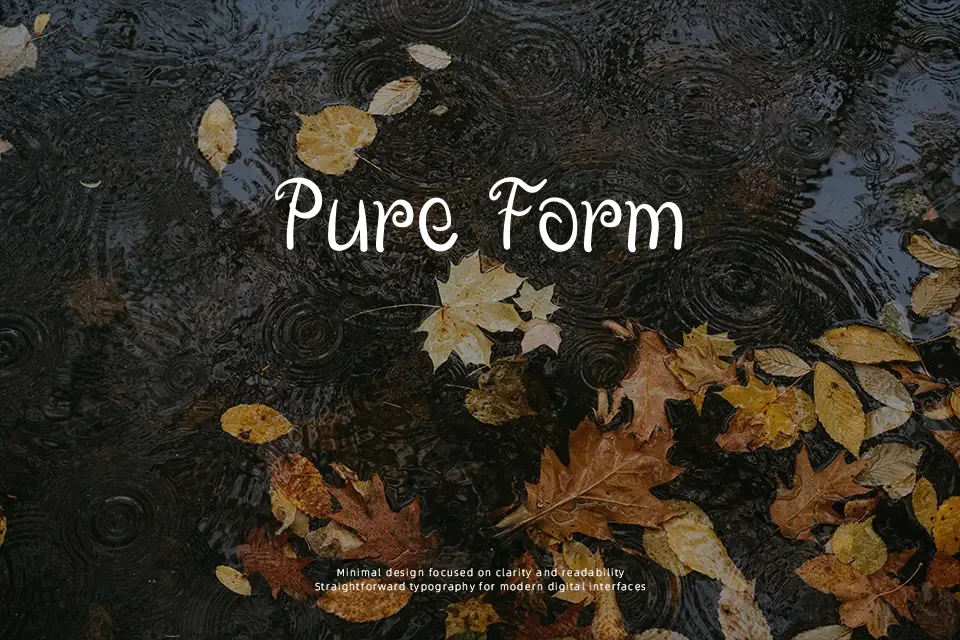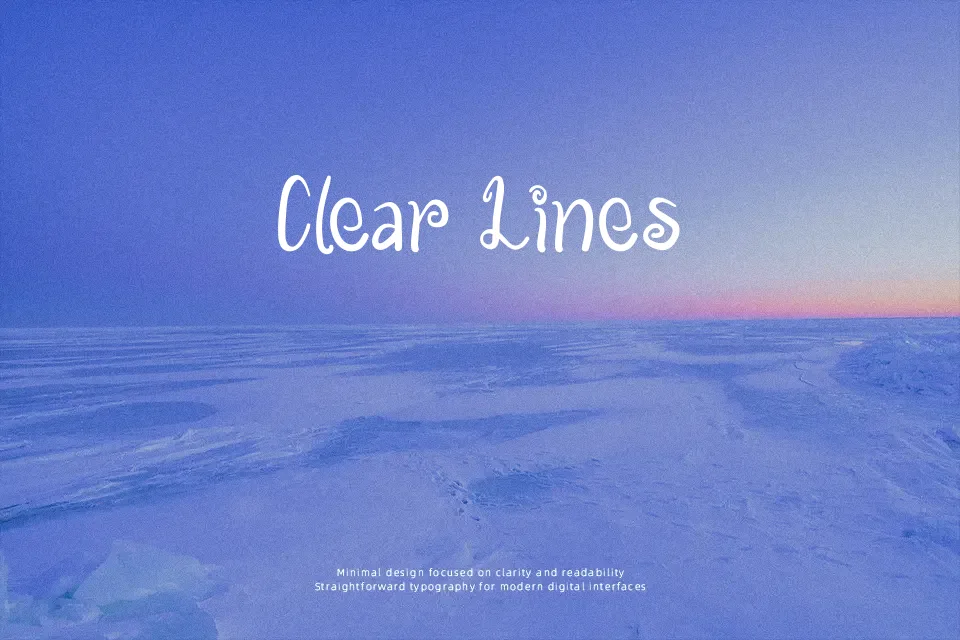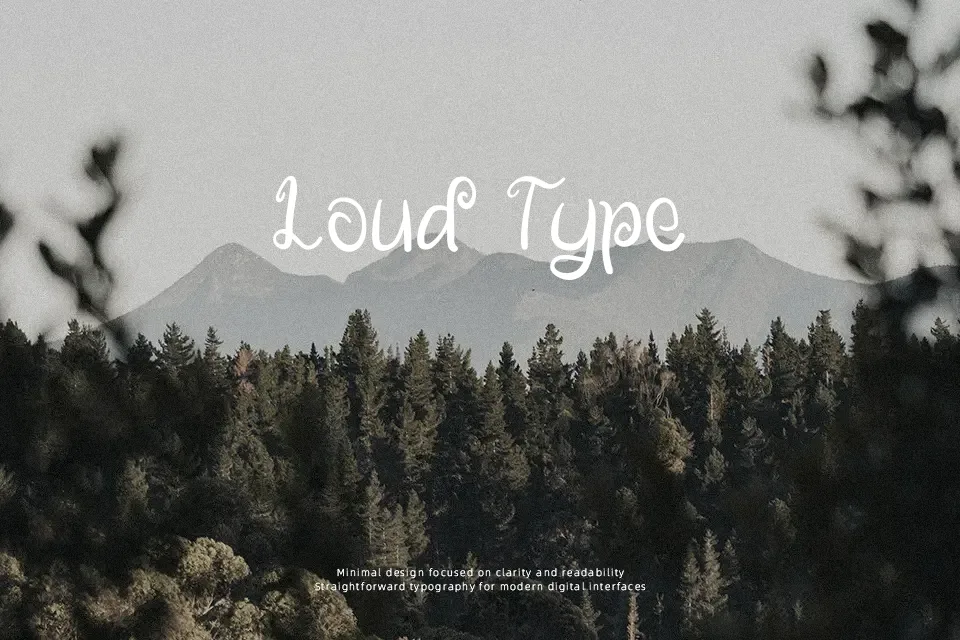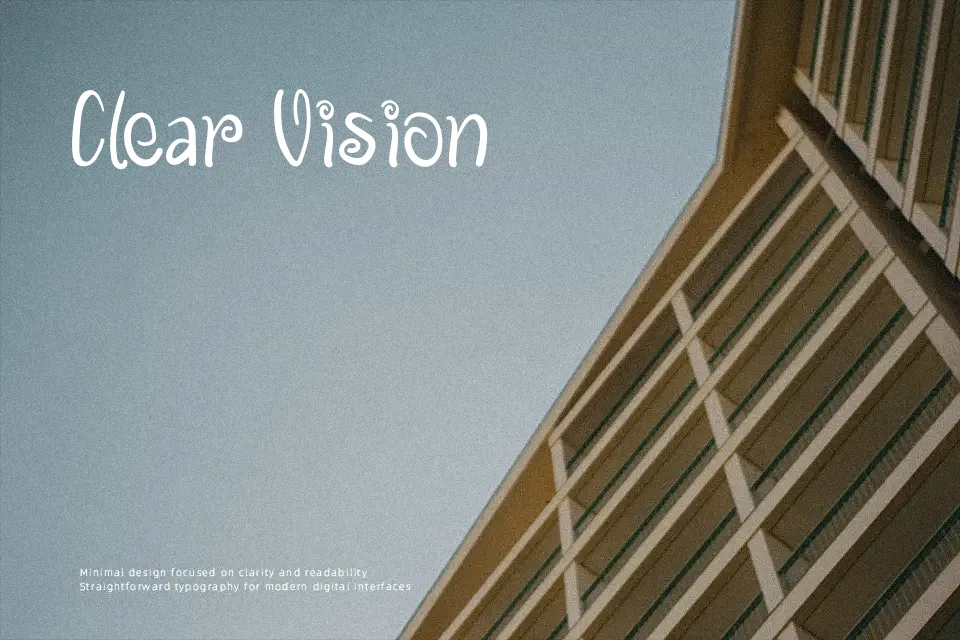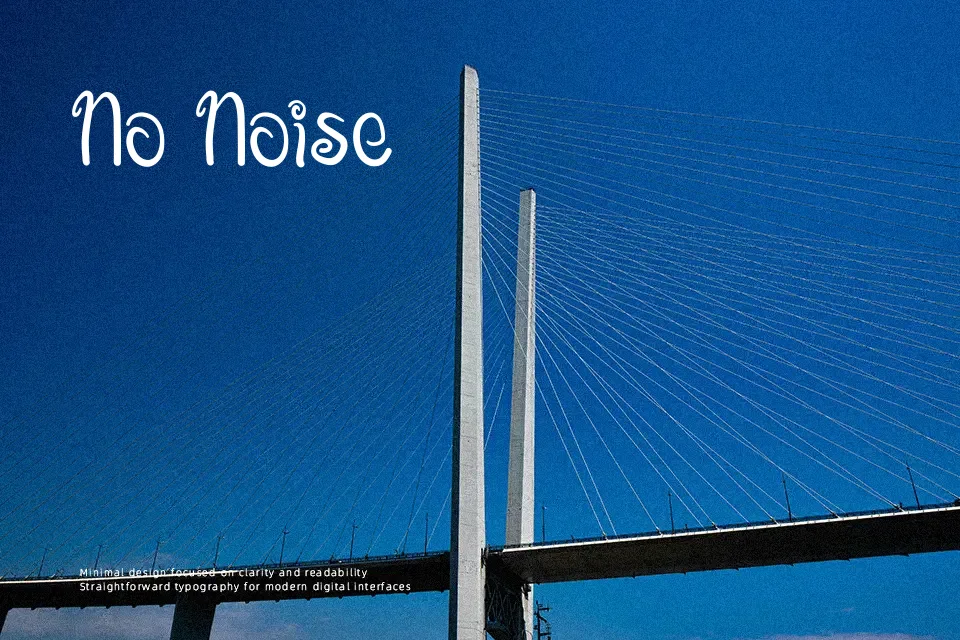
Batharnes Font
Designed by Denny Sutanto
Batharnes Font leans on soft, flowing strokes with a handwritten feel, combining rounded terminals and loose spacing to create an easygoing, playful look. It reads as a casual display script more than a strict handwriting imitation, so it works best at larger sizes where its curves and character shapes can breathe. You can use it for lifestyle quote images, informal product tags, or friendly blog headers that need a chic handwritten accent. It struggles in long paragraphs or small captions, where the informal forms and variable rhythm reduce legibility. Overall, it works well when treated as an eye-catching accent font, but not when pushed into body copy or highly formal layouts.
social media quote graphics
casual product labels and tags
informal blog or newsletter headers
tiny UI labels or system text
Perfect for branding, headline, and logo, with a creative and display style.